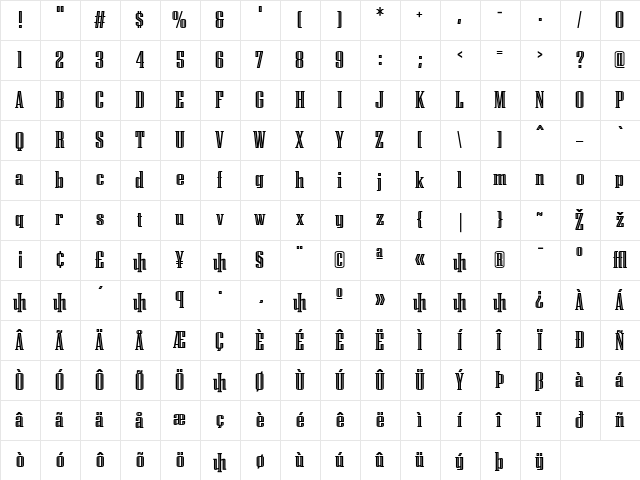
Citadel Regular Font Preview
Citadel Regular
Citadel Regular Font Details
| Foundry | Tobias Frere-Jones, designer. Produced by The Font Bureau, Inc |
Design Context for Citadel Typeface
Citadel takes a measured approach to typography — its balanced proportions and neutral character make it a reliable workhorse for both digital and print work.